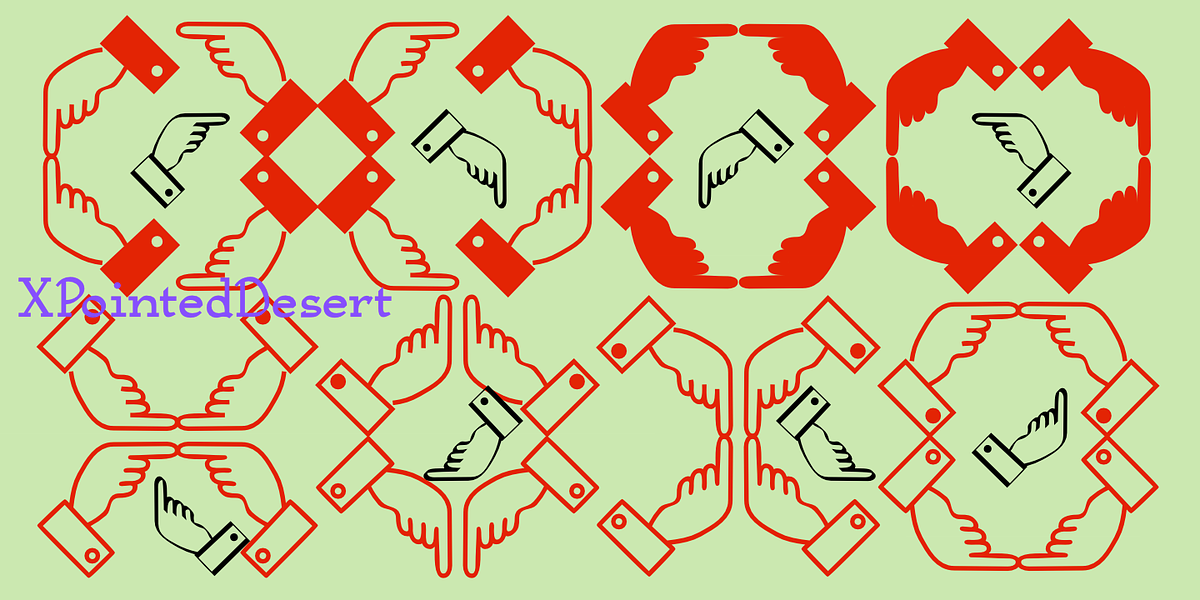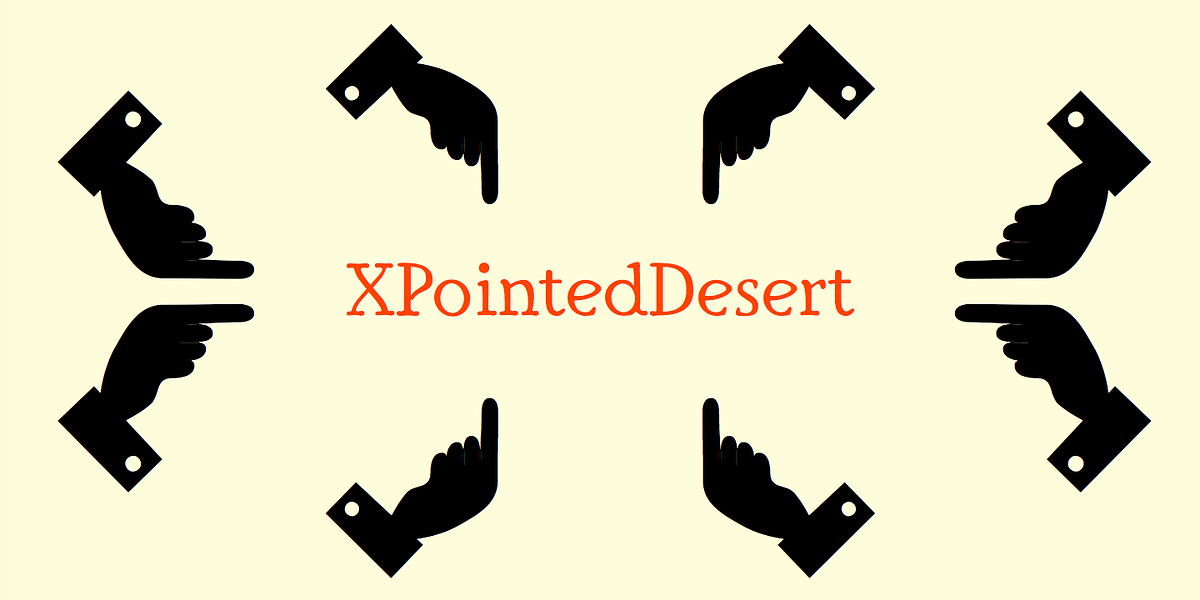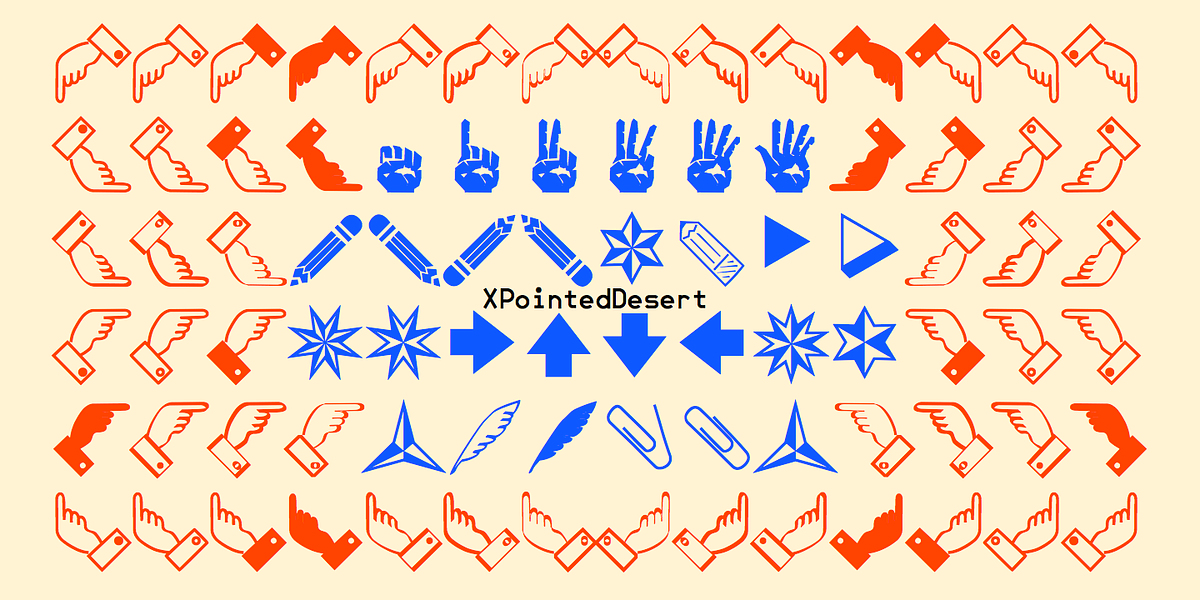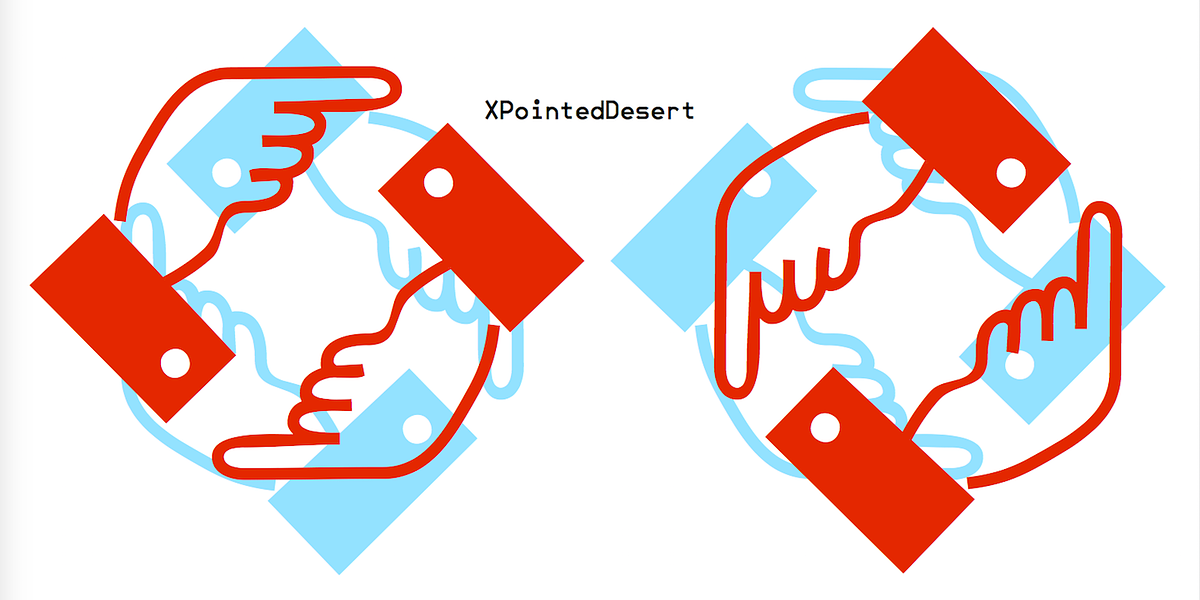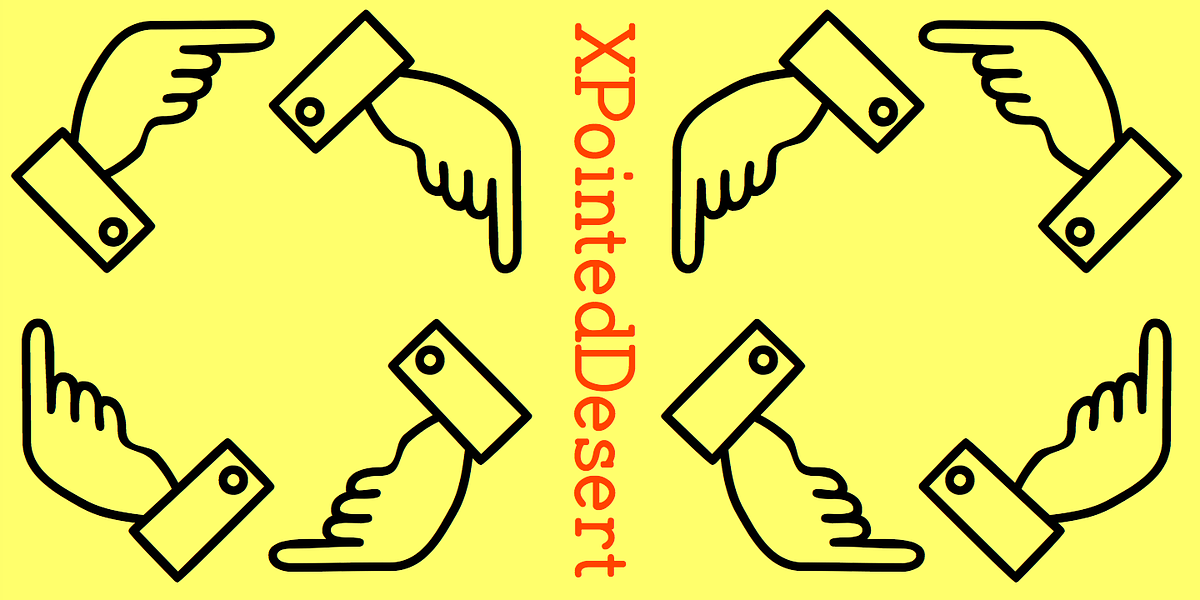
XPointedDesert
XPointedDesert is a dingbat font specifically designed with arrows pointing in multiple directions: up, down, and at 45-degree angles. This makes it suitable for use in illustrations, diagrams, or as decorative elements where directional emphasis is needed.